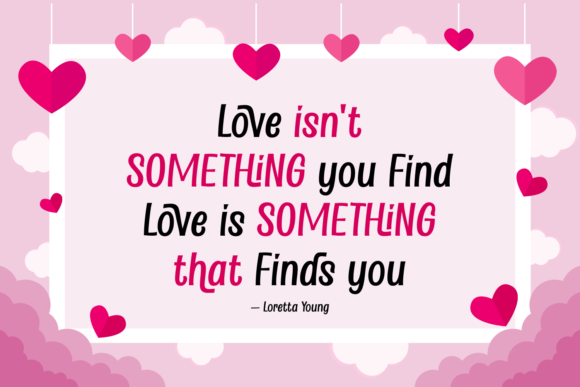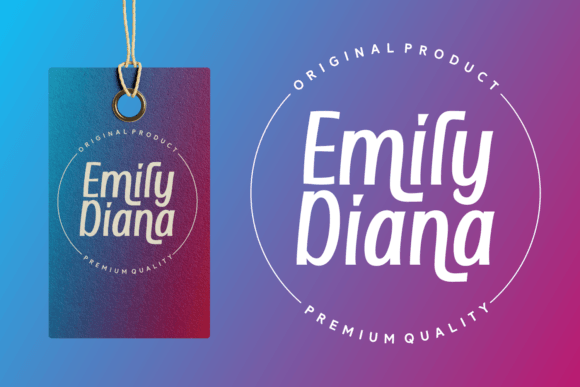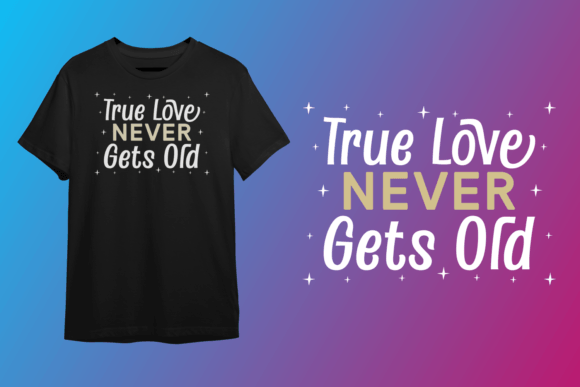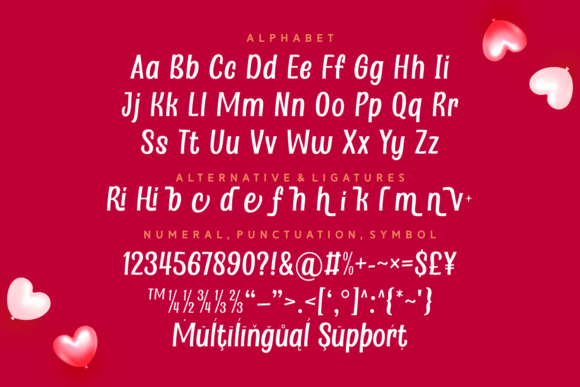
Introduction to Rianty Lovena Font
Rianty Lovena is a lovely handwritten typeface.
Whether youโre creating wedding invitations, branding materials, social media graphics, or editorial layouts, this font adds a touch of personality and flair to any project .
Key Features of Rianty Lovena Font
Why Choose Rianty Lovena Font?
Rianty Lovena Font offers exceptional quality and versatility, making it a valuable addition to your design toolkit. Whether you’re creating for personal projects or commercial use, Rianty Lovena Font delivers professional results.